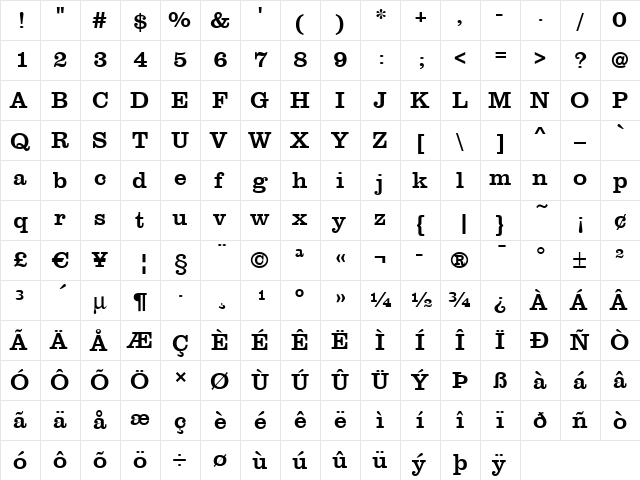
PaulineBecker Regular
Design Context for PaulineBecker Typeface
PaulineBecker is a composed and adaptable typeface that performs quietly and consistently across a wide range of design contexts.